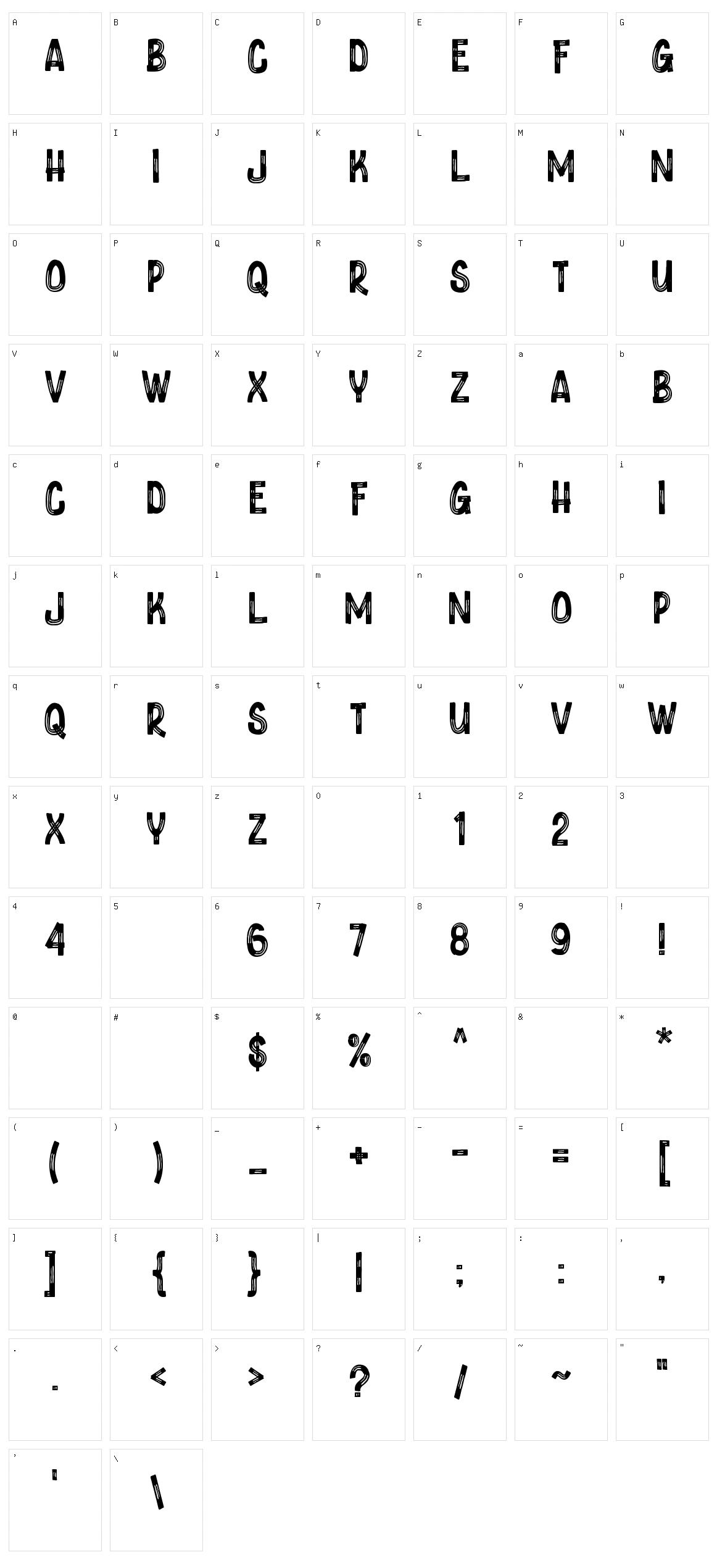
The free font Fortune Coin is carefully designed by Gassstype, showcasing a thoughtful balance of creativity and usability and falls under the Cartoon font style. When you download the ZIP file, it contains only 889.53 KB of font files, making it lightweight and quick to download. Please review the license details below to understand permitted usage and distribution rights. If license information is not available, we recommend using this font for personal projects only or contacting the author directly for commercial usage permissions.